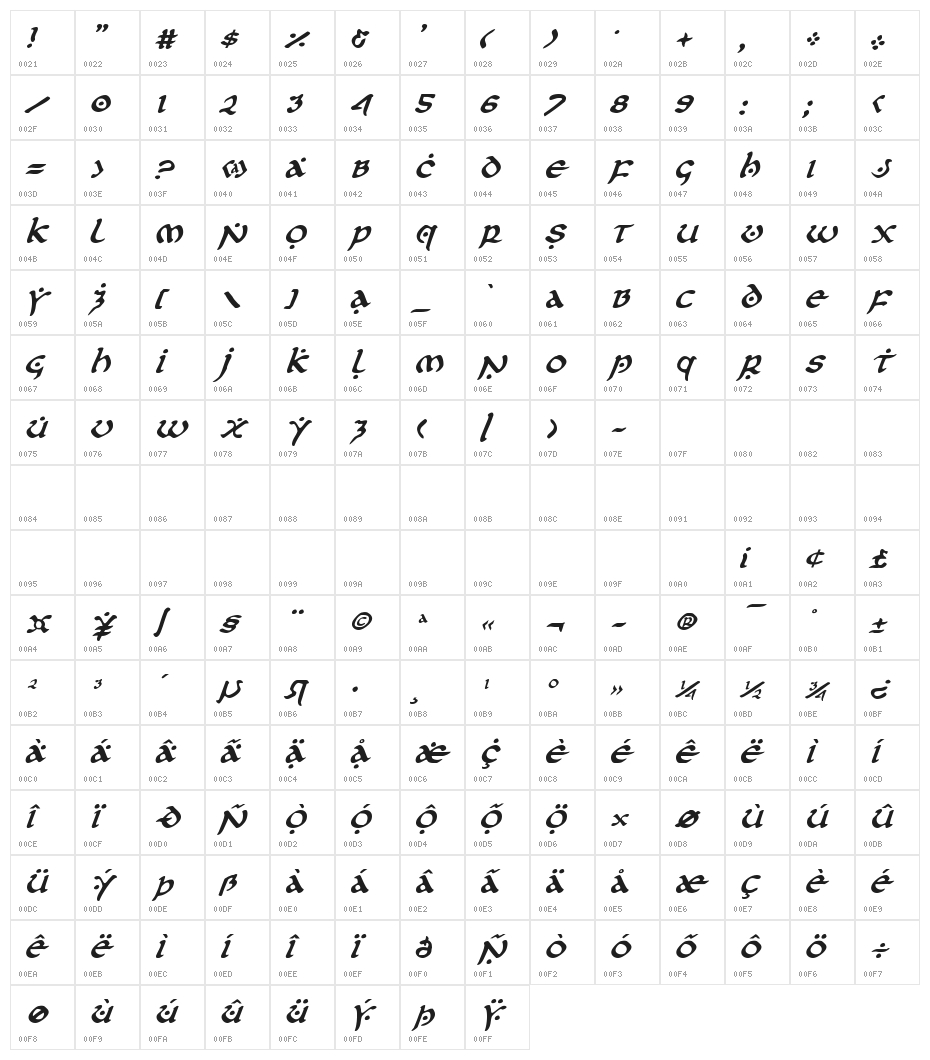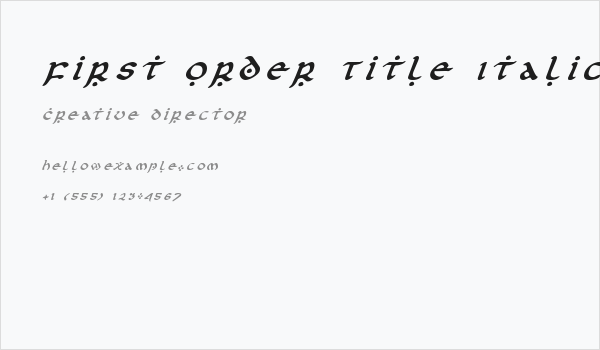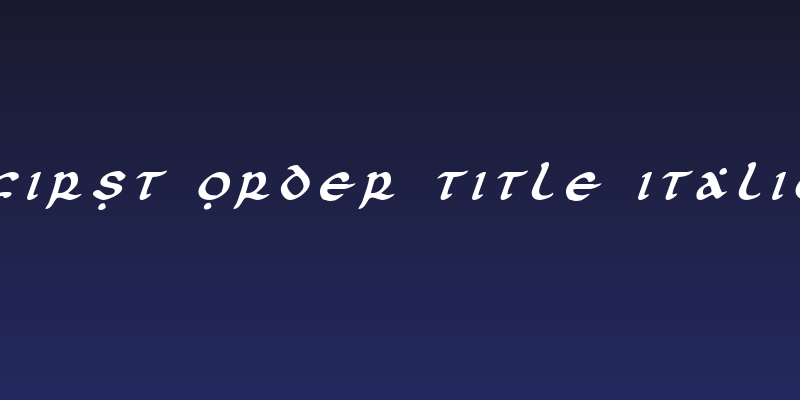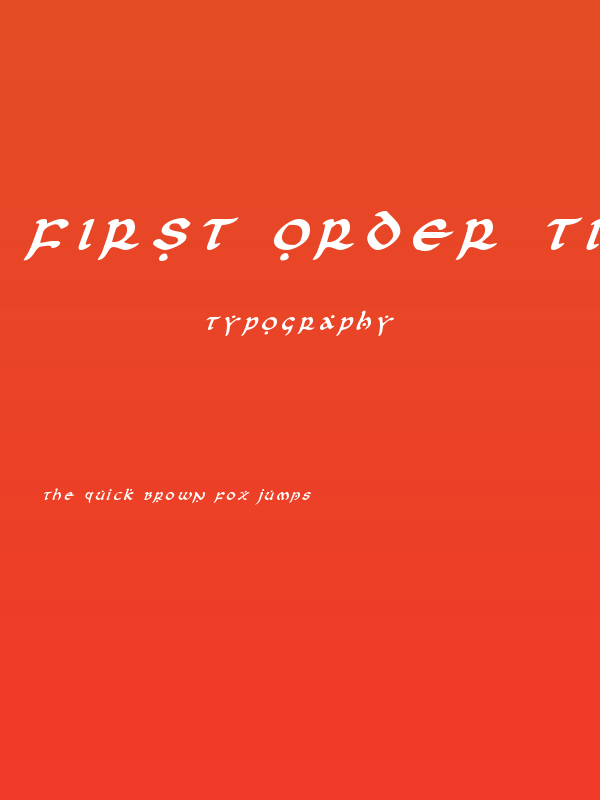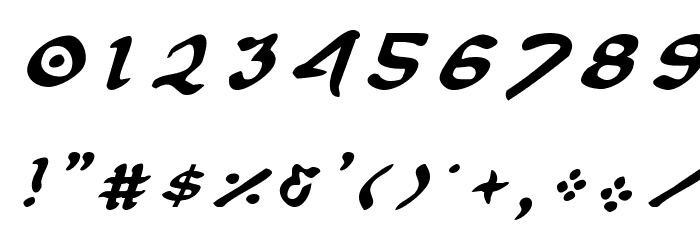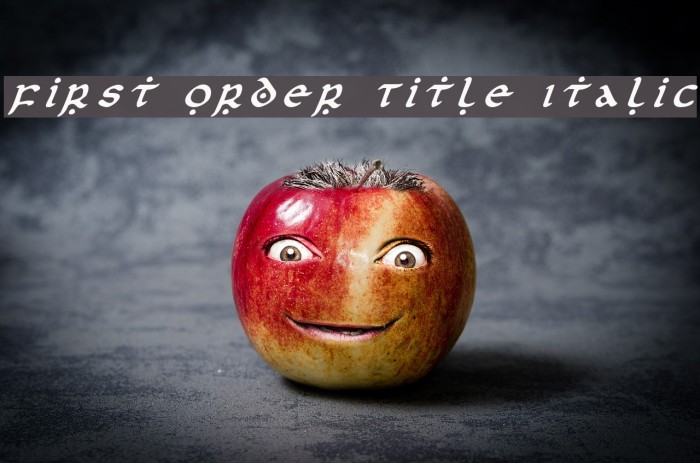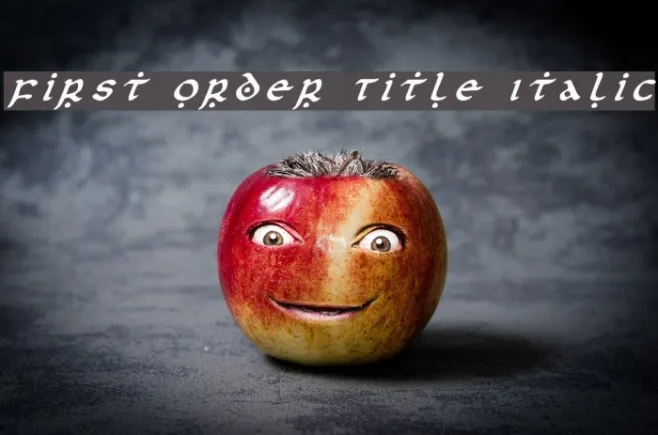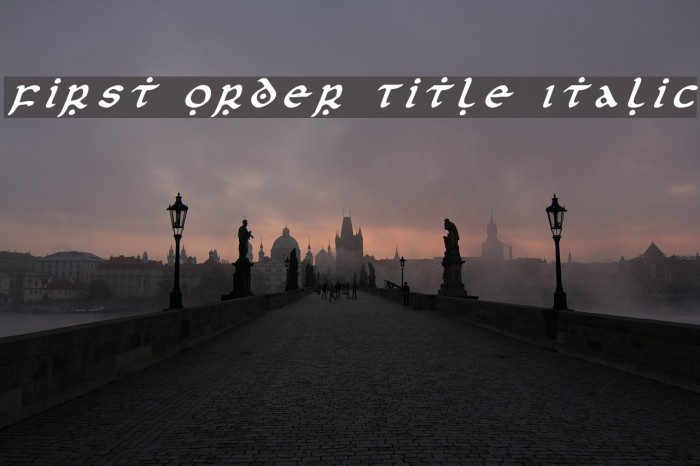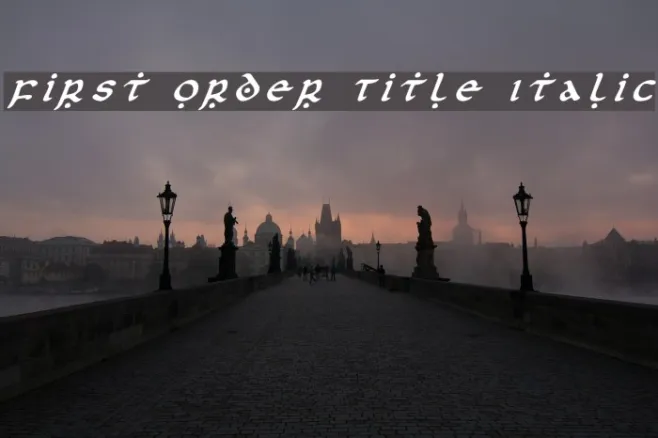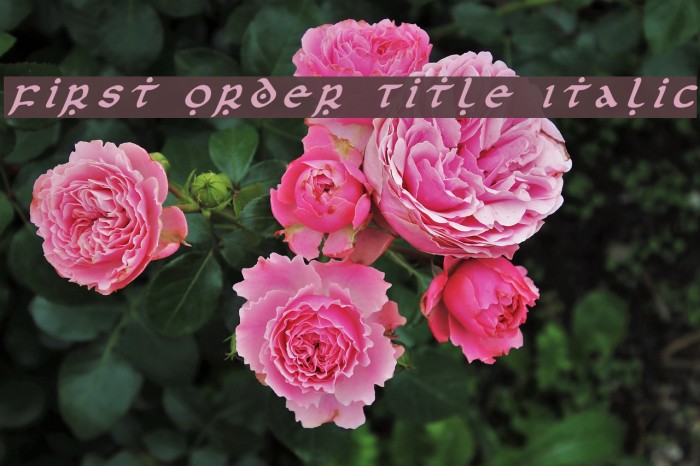
First Order Title Italic Font
First Order Title Italic Description
This font features a dynamic and flowing italic style, characterized by its elegant curves and distinctive slant. The letters exhibit a calligraphic influence, with a playful yet sophisticated appearance. The uppercase and lowercase letters maintain a consistent style, with unique flourishes that add a touch of personality. The numerals are equally stylized, complementing the overall aesthetic. Special characters are thoughtfully designed to match the font's artistic flair, making it suitable for creative and expressive projects.
| Proposed Projects | Ideal for wedding invitations, greeting cards, branding, and artistic posters. |